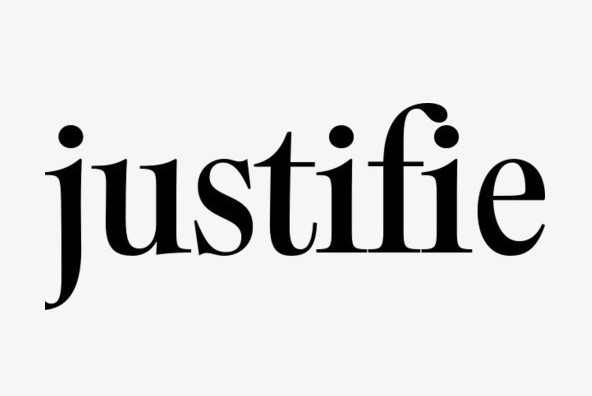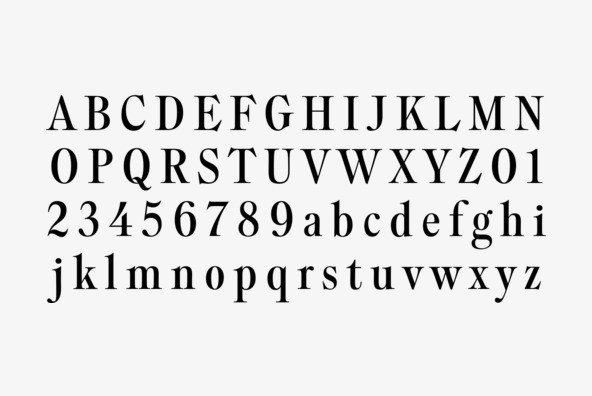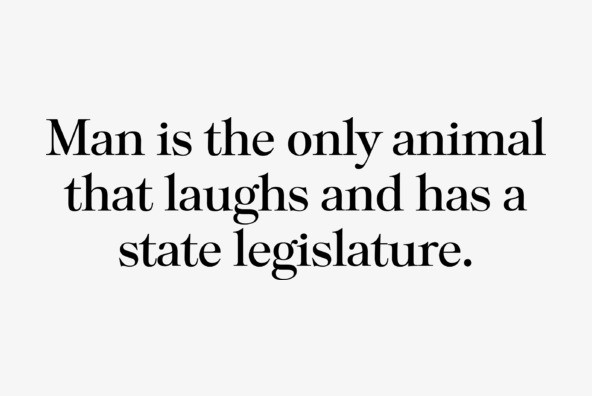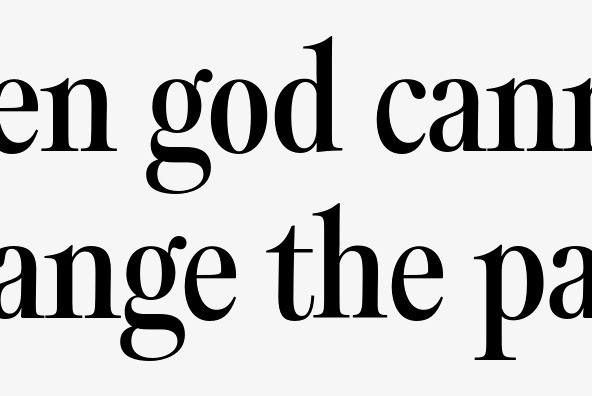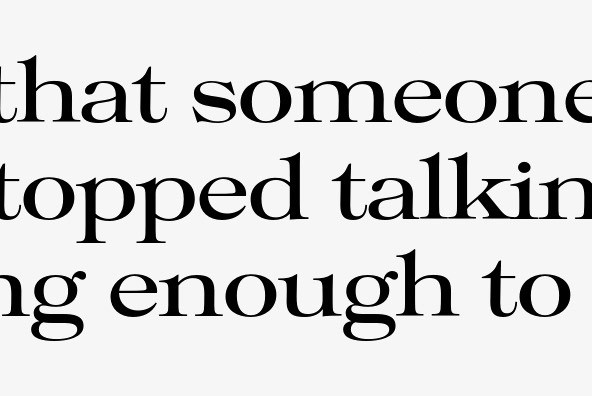
Filmotype Royal
Foundry: Filmotype
Originally released in the early-mid 1960s, Filmotype developed and released Royal as one of its earliest Transitional Serif typefaces inspired by lettering used on steam-era passenger train coaches Type design Charles Gibbons inspired by Royal's aesthetic expanded and developed a full range of styles based on exploring a variety of useful width variations While it had been Filmotype's practice to generate width variant typefaces using camera stretching techniques, Charles instead mastered each alphabet at its native width to create exceptional typesetting throughout the family Each weight of the Filmotype Royal family was developed from the original font filmstrips and includes a full international character compliment, automatic fractionals, ordinals, and a host of alternate characters in dynamic OpenType format